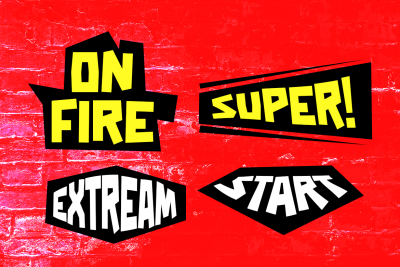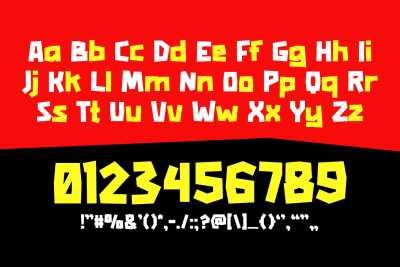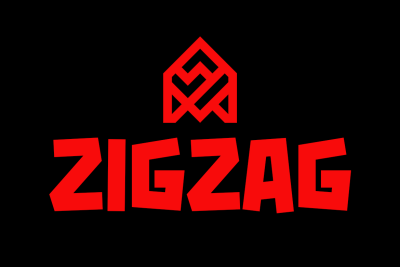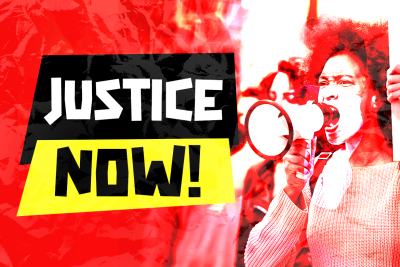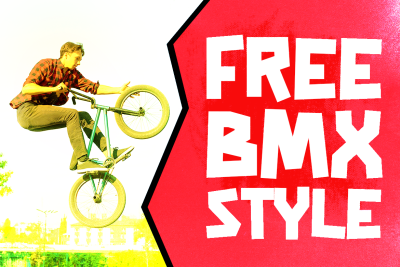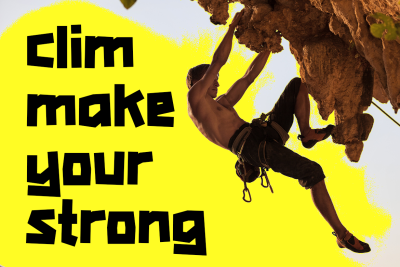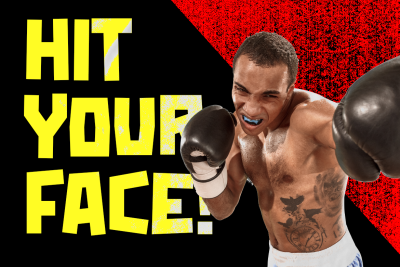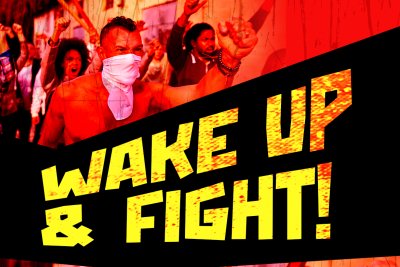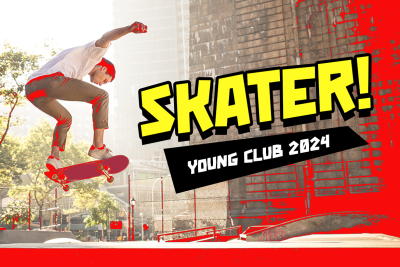
Funny font Blazter is a bold and jagged display font designed to exude energy and rebellion. With its sharp, irregular edges and bold design, this font is perfect for projects that demand a strong, edgy, and adventurous vibe. Moreover, the unique, angular letters immediately capture attention, making it ideal for designs aiming to stand out and make a statement.
In addition, Blazter carries a dynamic and modern feel, which adds intensity to any creative project. Furthermore, its vibrant and chaotic aesthetic makes it suitable for projects that need a youthful, rebellious, or unconventional look. The bold strokes and sharp details give the font an impactful and loud personality. As a result, this font doesnโt just communicate; it shouts with confidence and creativity. Whether for branding, posters, or digital content, Blazter ensures your message gets noticed and remembered.
Funny Font Blazter Perfect For
Blazter is ideal for a wide range of creative professionals and projects. Specifically, it caters to those who seek a bold and unconventional font to express energy, rebellion, and uniqueness. Here are some excellent use cases:
- Posters and Flyers: For example, use it for music festivals, punk rock events, or underground parties. The jagged and dynamic shapes create a strong visual impact that grabs attention instantly.
- Branding and Logos: Moreover, it is ideal for brands targeting a younger, adventurous audience, such as streetwear, sports brands, or extreme sports products. Its bold personality reflects strength and individuality.
- Digital Content: Similarly, use it for YouTube thumbnails, gaming content, or social media posts to attract viewers. The sharp, energetic style works well for content thatโs fast-paced and intense.
- T-shirt Designs and Merchandise: Additionally, it is great for standout T-shirt designs, especially those aimed at fans of bold, rebellious aesthetics. It also works well on hats, hoodies, and stickers.
- Comic and Graphic Design: Likewise, add drama and intensity to comic titles, book covers, or graphic art. The sharp, exaggerated shapes evoke motion and excitement.
- Advertising Campaigns: Furthermore, use it in advertisements for edgy or unconventional products. Its jagged look creates an impactful and unforgettable design.
- Gaming Projects: Finally, it is perfect for game titles, menus, or promotional materials. Its energetic vibe works well for action-packed games or bold game interfaces.
Overall, this font appeals to graphic designers, marketers, and illustrators working on bold and expressive projects. Thanks to its sharp edges and rebellious style, Funny font Blazter ensures your designs leave a lasting impression. Whether youโre creating posters, digital media, or merchandise, this font delivers an intense and unforgettable visual punch.